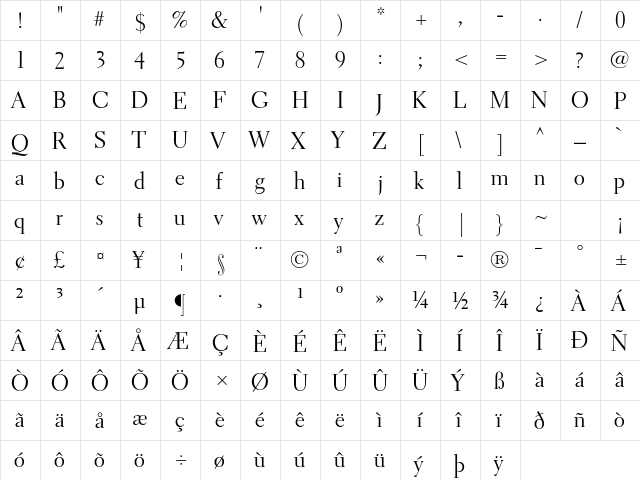
Electra LT Std Display
| Designer | William A. Dwiggins |
Design Context for Electra LT Std Typeface
Electra LT Std is built around its visual character rather than neutral utility — its distinctive forms are designed to make an impression at display sizes. The delicate stroke weight brings airiness and refinement to layouts.
Font Pairing: Pair with a clean neutral sans-serif for body copy to let Electra LT Std's character lead without overwhelming the composition.
Pro Tip: Treat Electra LT Std as the centrepiece of your typographic hierarchy. One strong heading set in a decorative face can carry an entire layout.